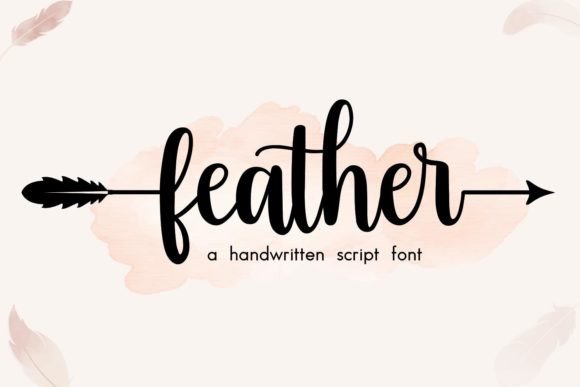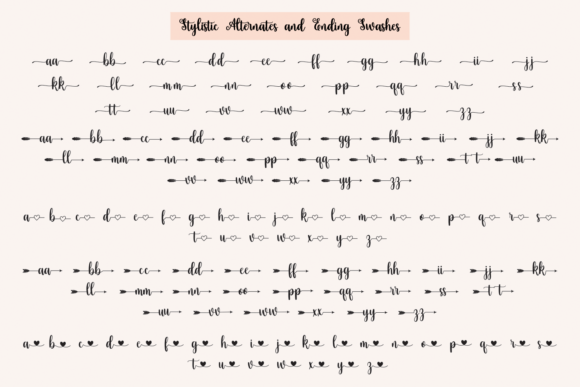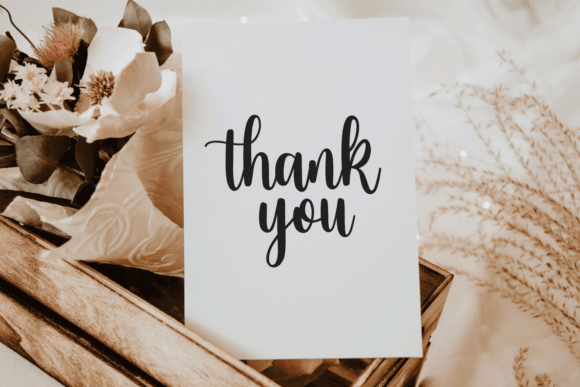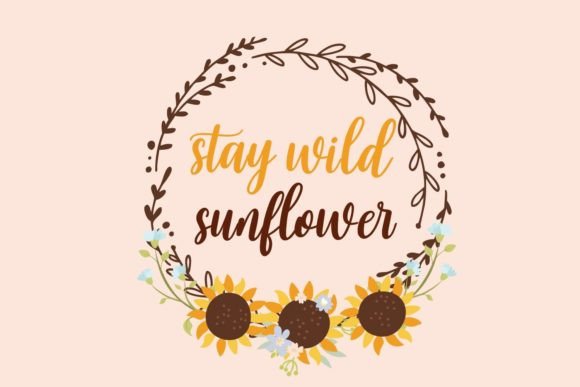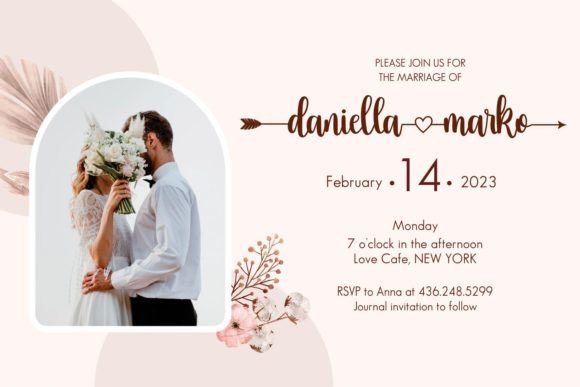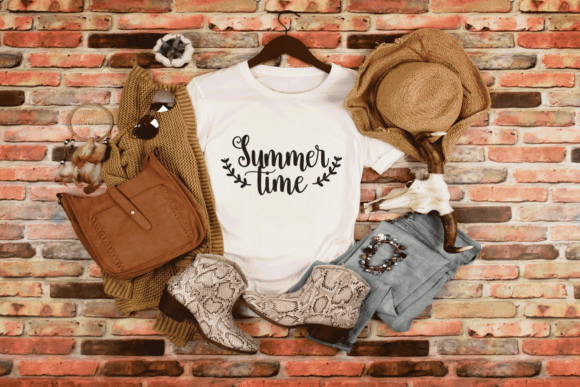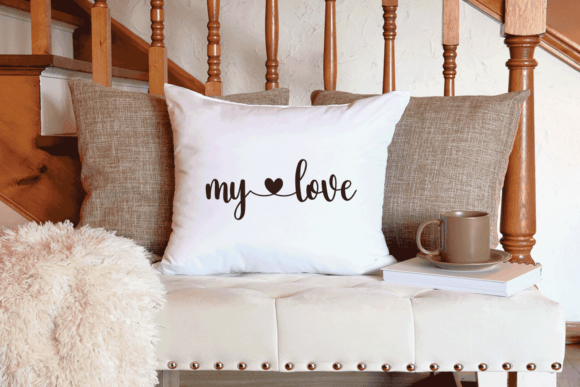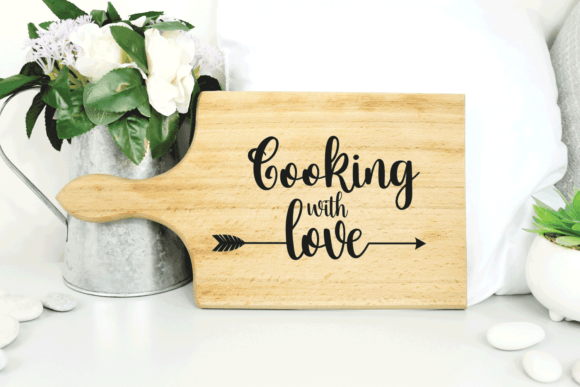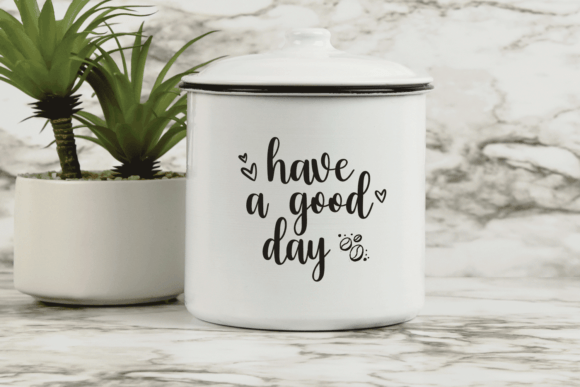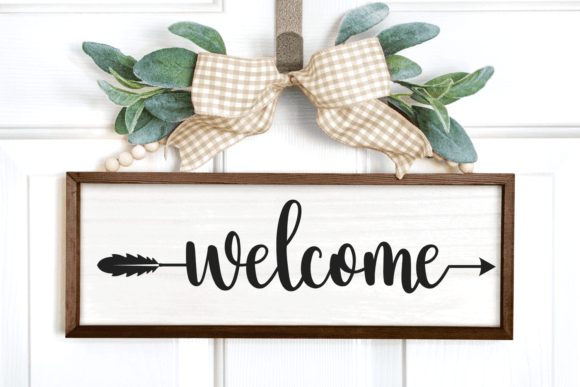
Feather Font
About Feather Font
“Feather” is a script handwritten font that embodies a quirky and natural hand-drawn style. With its distinctiveness and versatility, this font proves to be an ideal choice for a variety of creative projects, including crafting, branding, and decorating various design endeavors.
The hand-drawn script style of “Feather” adds a playful and organic touch to your designs. Its quirky nature makes it suitable for projects that call for a personalized and unique look. Whether used in crafting, branding, or as a decorative element, this font stands out with its natural and whimsical charm.
In crafting projects, “Feather” becomes a standout font for creating handmade and personalized items. Its quirky script adds character and authenticity to your crafts, making them more visually appealing and unique.
For branding, the font’s versatility shines through, making it suitable for businesses, book covers, stationery, marketing materials, magazines, and more. Its natural and hand-drawn aesthetic adds a touch of individuality to your brand identity, setting it apart from more conventional fonts.
The PUA encoding of “Feather” is a valuable feature, allowing easy access to glyphs and swashes. This enhances the font’s flexibility, enabling you to customize and personalize your designs effortlessly, creating a truly unique and engaging visual experience.
In summary, “Feather” is more than just a font; it’s a design tool that brings a quirky and natural hand-drawn aesthetic to your creative projects. Whether you’re working on crafting, branding, or other design endeavors, let “Feather” be the font that adds a touch of playfulness and uniqueness to your spectacular designs.